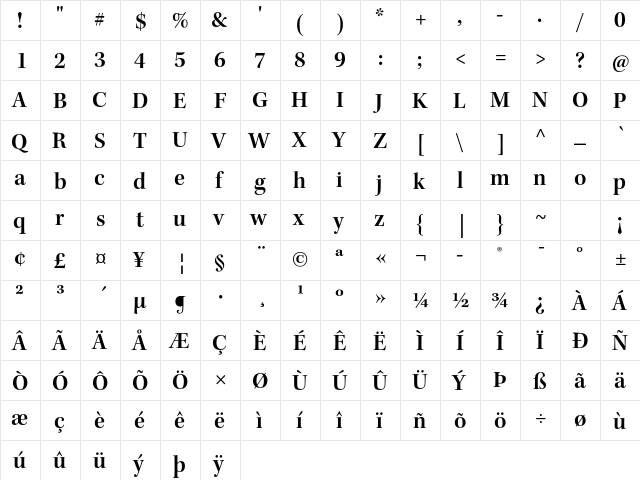
Kepler Std Semibold Subhead
| Style | Semibold Subhead |
| Designer | Robert Slimbach |
Design Context for Kepler Std Typeface
Kepler Std is a composed and adaptable typeface that performs quietly and consistently across a wide range of design contexts. The heavy weight commands attention and anchors typographic hierarchies.